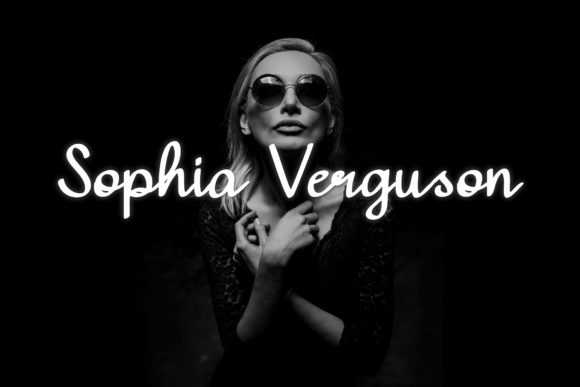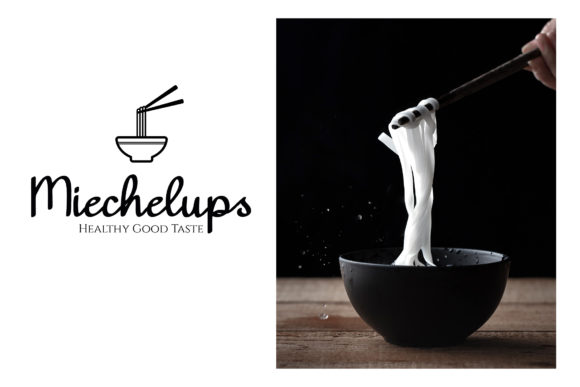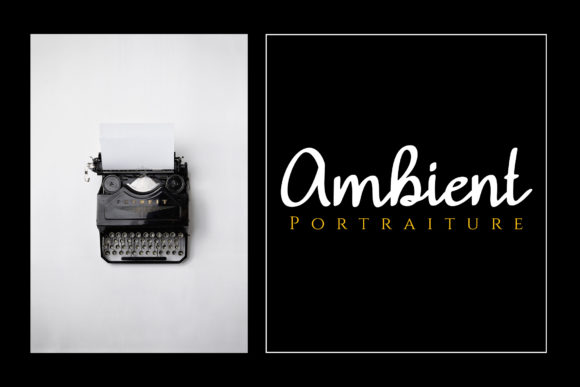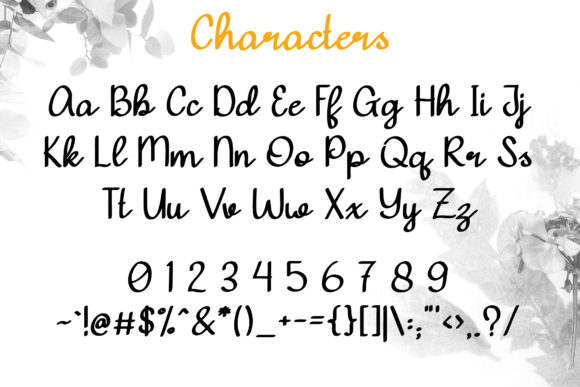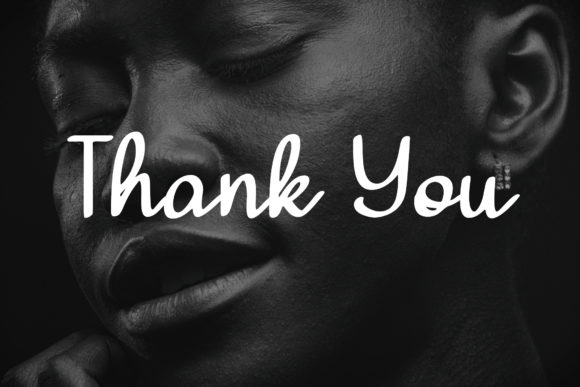
Introducing Calliandra: The Elegant and Modern Handwritten Font
Are you looking for a font that exudes elegance and sophistication? Look no further than Calliandra, a beautiful handwritten font that’s perfect for a variety of design projects. From wedding invitations to posters, branding, and more, Calliandra is the perfect choice for designers and crafters who want to add a touch of modern style to their work.
What Makes Calliandra Special?
Calliandra is a unique and elegant font that’s designed to make your designs stand out. Its modern handwritten style is perfect for creating beautiful and eye-catching designs that will leave a lasting impression. The font features:
• Elegant and cursive style: Calliandra’s elegant and cursive style makes it perfect for designs that require a touch of sophistication.
• Modern and fresh look: The font’s modern and fresh look makes it perfect for designs that require a contemporary style.
• Highly legible: Calliandra is highly legible, making it perfect for designs that require clear and easy-to-read text.
• Versatile: The font is versatile and can be used for a variety of design projects, from wedding invitations to posters, branding, and more.
Perfect for Wedding Invitations and More
Calliandra is perfect for wedding invitations, making it a popular choice among designers and crafters. The font’s elegant and sophisticated style makes it perfect for:
• Wedding invitations: Create beautiful and elegant wedding invitations that will set the tone for the big day.
• Posters: Create eye-catching posters that will grab attention and leave a lasting impression.
• Branding: Use Calliandra to create a consistent and professional brand image that will help you stand out from the competition.
• Stationery: Create beautiful and elegant stationery that will make your correspondence stand out.
Why Choose Calliandra?
There are many reasons why you should choose Calliandra for your design projects. Here are just a few:
• Unique and elegant style: Calliandra’s unique and elegant style makes it perfect for designs that require a touch of sophistication.
• High-quality design: The font is designed to high standards, ensuring that it will look great in any design project.
Here are a few tips and tricks to help you get the most out of Calliandra:
• Use it with contrasting colors: Use Calliandra with contrasting colors to make your design stand out.
• Experiment with different sizes: Experiment with different sizes to find the perfect size for your design.
• Pair it with other fonts: Pair Calliandra with other fonts to create a unique and interesting design.
Author Katario Studio
Calliandra is a beautiful and elegant handwritten font that’s perfect for designers and crafters who want to add a touch of modern style to their work. Its unique and elegant style makes it perfect for wedding invitations, posters, branding, and more. With its high-quality design, ease of use, and affordability, Calliandra is a great choice for any design project.